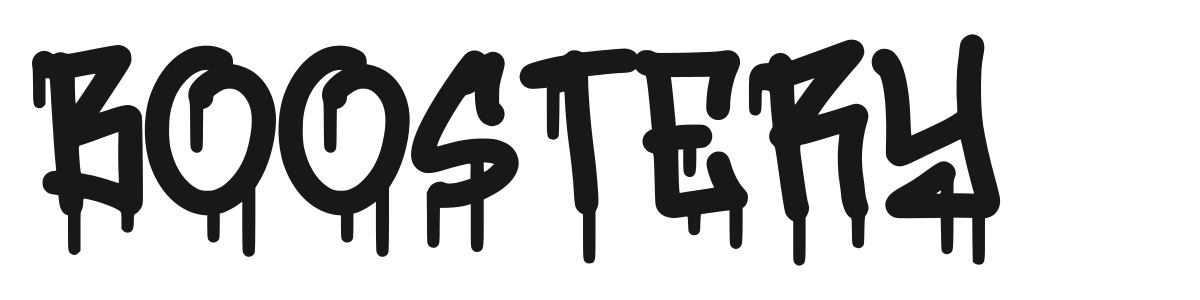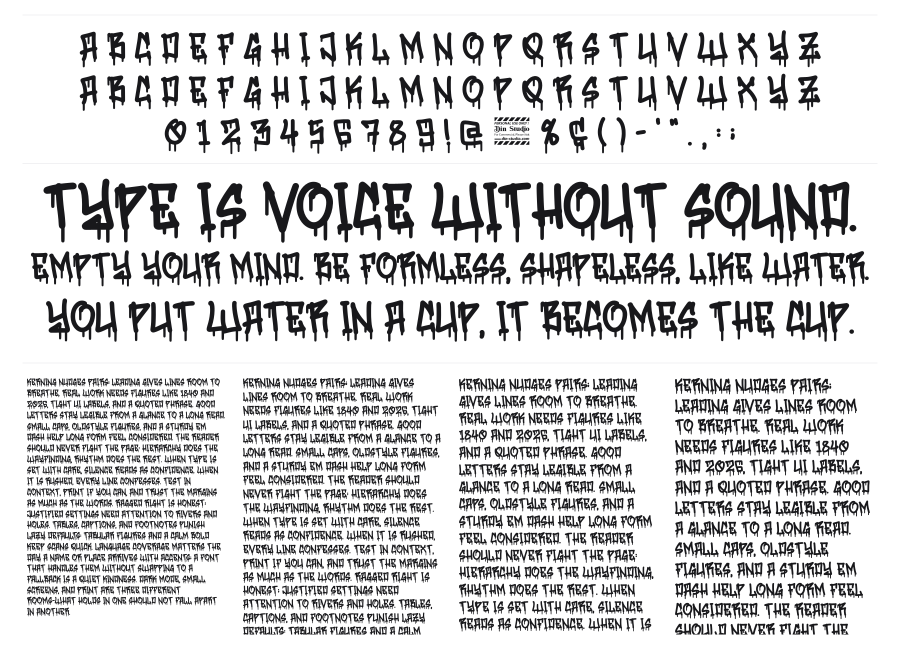
Boostery
Boostery is a bold all-caps graffiti typeface built around the visual language of spray-can street lettering. Thick, irregular strokes end in dramatic dripping paint effects that give each character a raw, almost menacing presence. It draws from urban graffiti tradition while staying legible enough for branding and headline use.